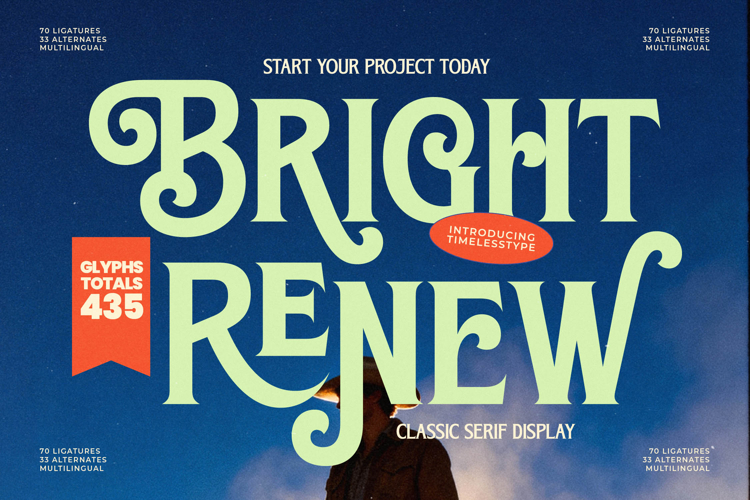
Bright Renew - Classic Serif Display Font
Make an unforgettable first impression. Bright Renew - Classic Serif Display Font is the ultimate statement piece for designers seeking audacious visual appeal. This display typeface perfectly balances classic serif structure with an undeniable contemporary groove. Featuring thick, dramatic strokes and exquisite high-contrast detailing, it utilizes its exaggerated curves and flowing swashes to command attention on any canvas, ensuring your message is not just seen, but profoundly felt.